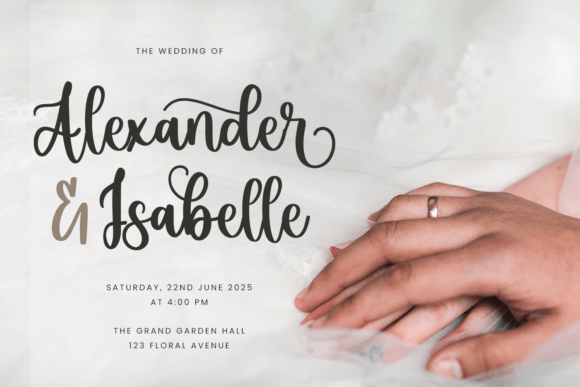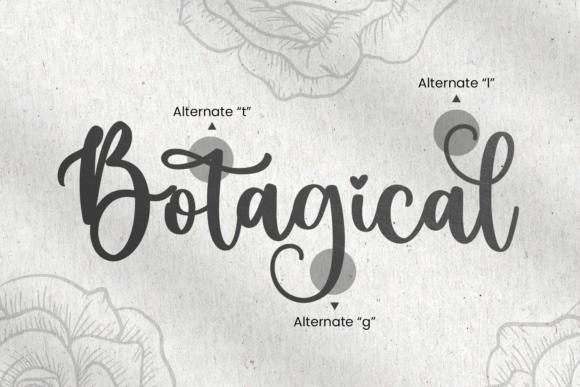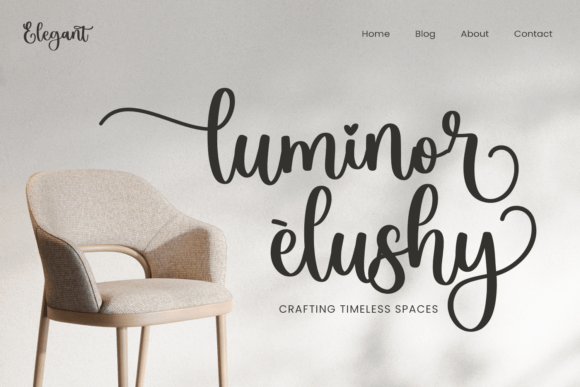
Honeymoon Font
Introducing Honeymoon, a graceful script handwritten font that captures the essence of romance and celebration. With elegant beginning and ending washtails on every character, this font brings a soft, flowing touch to your designs, making it perfect for weddings, invitations, birthdays, and more. Whether you’re creating for a spring or summer event or designing for autumn, Thanksgiving, or Christmas, Honeymoon adds a timeless charm to every project.
The Honeymoon font is also PUA encoded, granting easy access to alternate characters and flourishes for endless design possibilities.